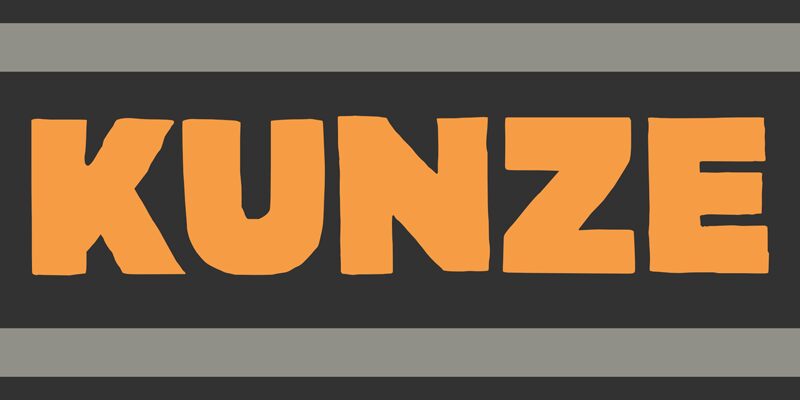
Kunze DEMO Regular
Kunze is a daring and unique display font designed by D K. The distorted style of this extra-bold typeface is perfect for projects seeking to make a bold statement, whether it's for branding, advertising, or editorial design. With its semi-expanded width, Kunze commands attention with its larger-than-life letterforms that are both striking and memorable. Its thick strokes and unconventional angles give it an edgy feel that suits designs that aim to stand out from the crowd. Kunze is an excellent choice for projects in fashion, music or entertainment industries where creativity and originality are paramount.